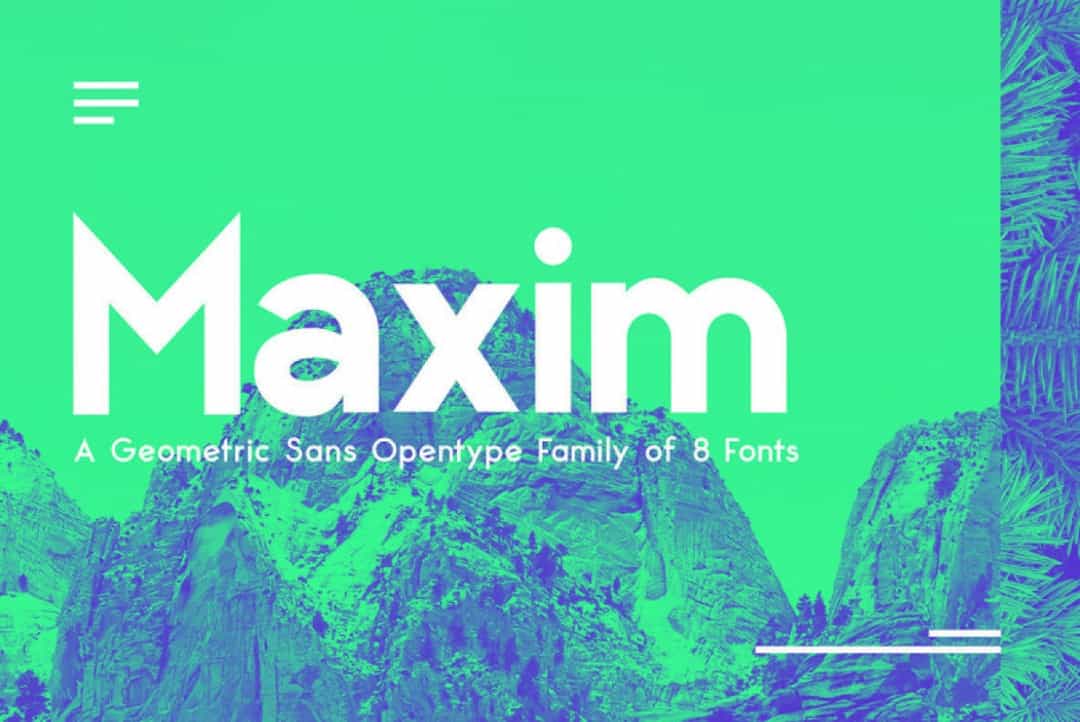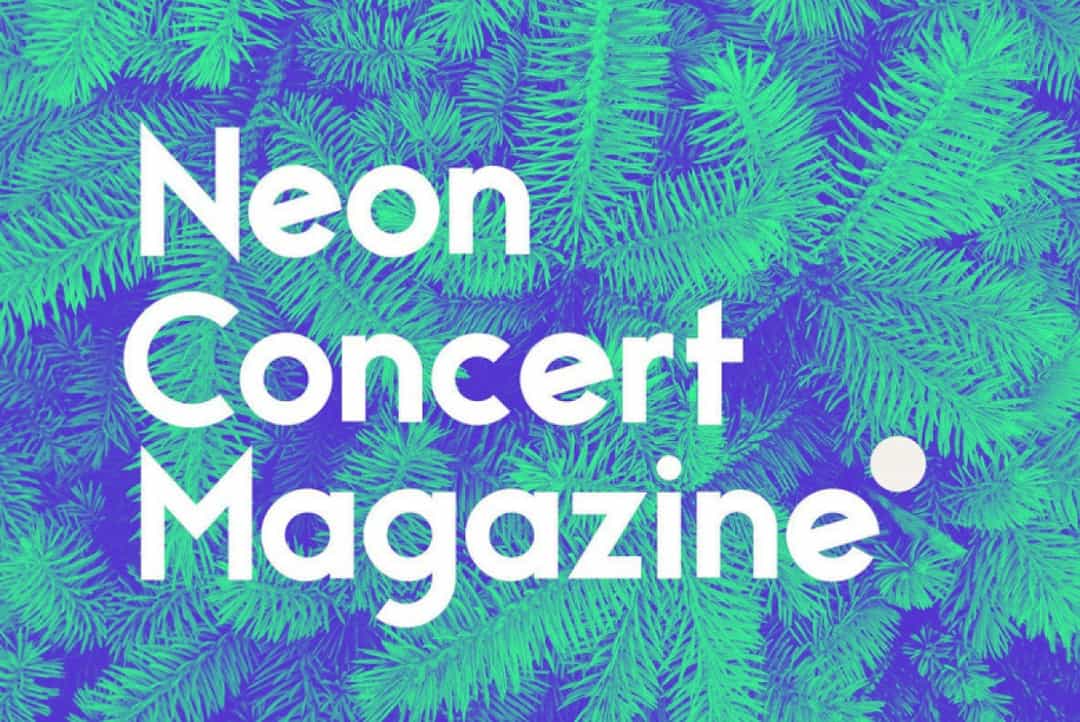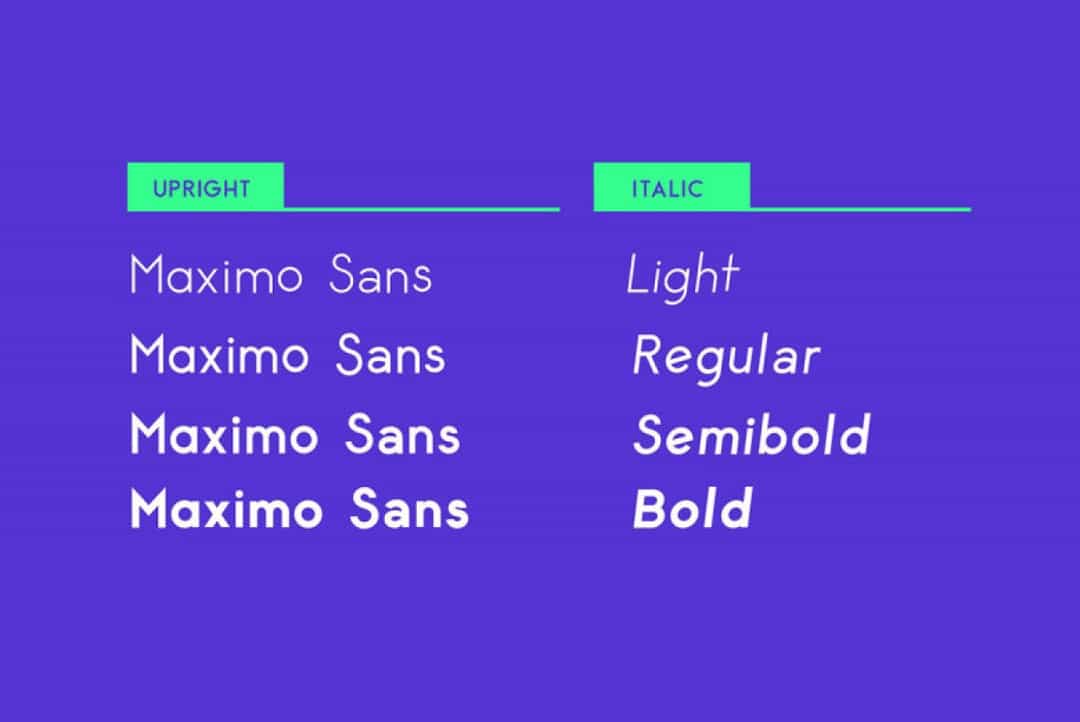
Maxim Sans is an exciting contemporary sans serif font family featuring eight fonts designed with clean geometric forms for harmonious headlines and texts. Maxim Sans makes an excellent companion font for editorial use, branding, signage and larger applications alike.